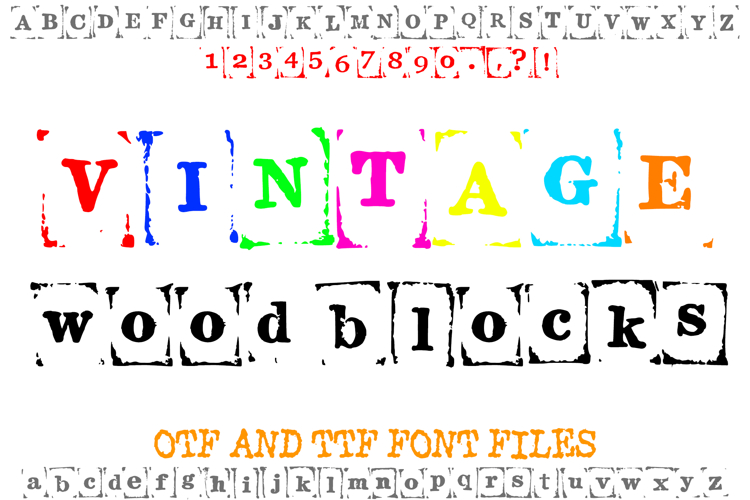
Vintage Wood Print Blocks Lettering ABC Font Typography Text
This unique vintage woodblock font has been lovingly handcrafted using authentic wood printing blocks. Each letter, number, and symbol was individually hand-printed and carefully photographed, capturing the rich textures, imperfections, and charm of traditional letterpress printing. The result is a truly authentic font that brings a nostalgic, handmade feel to your designs.
With its distressed edges and bold, rustic style, this typeface is perfect for projects that need a touch of history and character. Use it for posters, logos, branding, packaging, apparel design, scrapbooking, invitations, signage, book covers, and more.
Whether you’re creating retro-inspired graphics, vintage-style crafts, or bold artistic statements, this font gives you the charm of traditional woodblock printing in a digital format—perfect for makers, crafters, and designers alike.